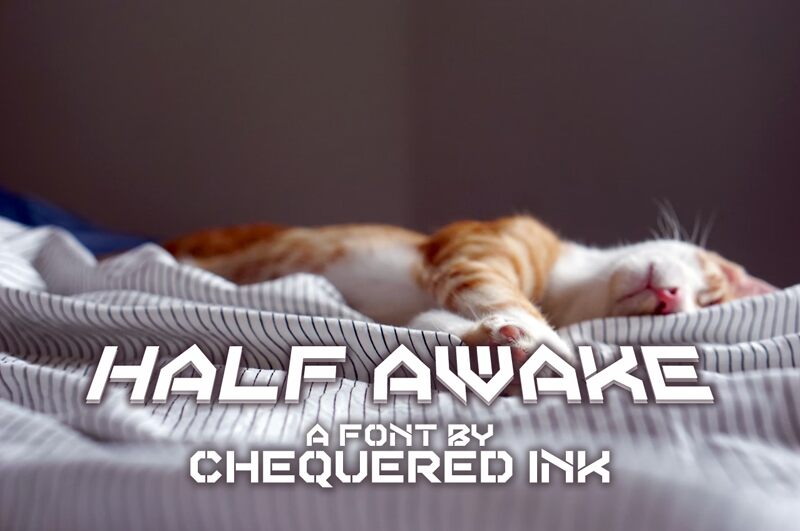
Half Awake font designed by Chequered Ink incorporates a geometric and dynamic style while appearing perfectly imperfect. Combined with its progressive and sci-fi aesthetic, the font gives off a technological vibe that enhances its sharp and rigid stylization. This free font mixes elements of vintage and modern, making it suitable for a variety of different occasions.
Half Awake is a solid choice for technology-themed editorial spreads, posters, and magazine covers. Other possible ways to incorporate it can be branding, music album covers, movie posters, signage, and product packaging. Authentic and clean website design is also not a bad option with this font.